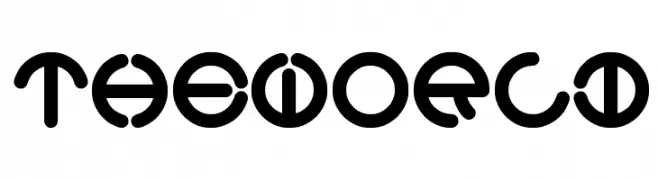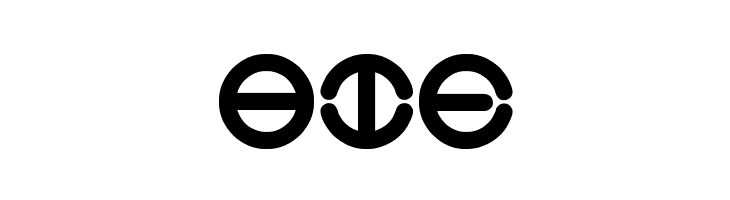
A geometric, futuristic font with bold, circular elements and strong visual impact.
A futuristic, geometric font with bold, circular strokes and a modern aesthetic.